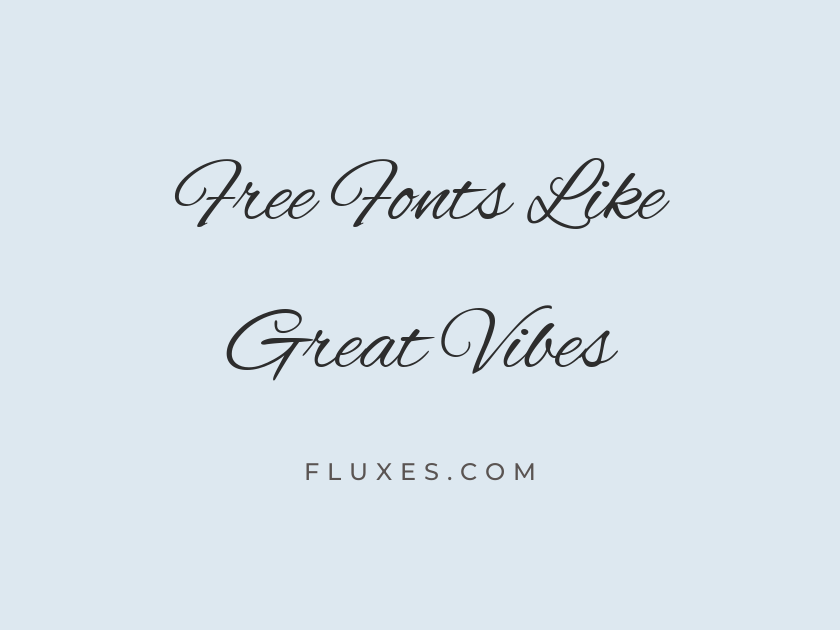
16 Best Free Fonts Similar to Great Vibes
Great Vibes has become the default choice for anyone chasing that romantic, hand-lettered calligraphy look, and its popularity means designers are constantly hunting for fresh alternatives that carry the same elegance without repeating the exact same silhouette on every wedding invite and logo. The style is defined by long entrance and exit strokes, a forward slant, and a light touch that feels penned rather than typed. Finding free calligraphy fonts on Google Fonts that hit that same formal, flowing register takes some sifting, since many scripts lean casual or bouncy rather than refined.
Alex Brush is probably the closest sibling to Great Vibes in spirit: confident, continuous strokes with a slightly bolder body that reads well even at modest sizes. It carries the same bridal warmth but with a touch more weight, making it a dependable stand-in when Great Vibes feels a little too delicate for the layout.
There is a softness to Allura that makes it feel almost whispered rather than announced. The letterforms are narrower and more upright in places than Great Vibes, which gives it a slightly more contemporary, less baroque feel while still working beautifully on save-the-dates.
Parisienne trades some of the sharp calligraphic flair for rounder, more relaxed loops, giving it a friendlier, almost conversational tone. It suits invitations and packaging that want romance without quite so much formality, and it pairs nicely with a restrained serif for body copy.
Pinyon Script leans further into old-world engraving, the kind of lettering you would expect on a Victorian calling card. Its strokes are thinner and more angular than Great Vibes, so it earns a place on formal certificates and monograms where precision matters more than warmth.
This one is smaller in scale and more upright, closer to a delicate handwriting sample than a grand calligraphic flourish. Sacramento shines in short phrases, logotypes, and social graphics where Great Vibes would feel oversized or overly ornate.
Mrs Saint Delafield has a looser, more spontaneous hand, as if it were signed rather than set. That informality makes it a good pick when a design needs the romance of script lettering but wants to avoid looking too stiff or printed.
Italianno pushes the exaggerated swashes even further than Great Vibes, with tall ascenders that curl dramatically above the baseline. It photographs well as a hero word on a website banner, though at small sizes those flourishes can blur together, so it is best reserved for large display use.
Herr Von Muellerhoff feels like a fountain pen dipped in extra ink, dense and confident in its curves. Save it for short headlines rather than long lines of text, where its thick connecting strokes can start to feel heavy.
Rouge Script keeps the romance but simplifies the flourishes, resulting in a cleaner, more legible script that still nods to calligraphy tradition. It is a practical choice for anyone who loves the Great Vibes mood but needs something that holds up in smaller print runs like place cards or menus.
Tangerine is lighter and more delicate than almost anything else on this list, closer to fine copperplate than bold script. The bold weight helps it stay legible, but it still asks to be set large, ideally paired with a sturdy serif or sans for supporting text.
As the name suggests, this one is stiffer and more upright, resembling formal penmanship instruction rather than freehand calligraphy. It suits certificates, diplomas, and other documents where the tone needs to feel official rather than romantic.
Meddon has a gentle, unhurried rhythm to its letterforms, less theatrical than Great Vibes but still clearly a calligraphy font. It works well in body-length script use, such as a short poem or vow excerpt, where more elaborate scripts would tire the eye.
WindSong feels contemporary despite its calligraphic roots, with cleaner joins and a lighter overall texture. It is a strong option for modern branding that wants a script accent without veering into overtly vintage territory.
Lovers Quarrel
This script is compact and tightly looped, giving it a busier, more decorative texture than Great Vibes. It reads best in short bursts, such as a monogram or a single accent word layered over a photograph.
Marck Script feels the most like genuine handwriting on this list, casual and slightly imperfect in the most charming way. It is a good match for personal, informal projects like greeting cards or journaling templates rather than high-formality invitations.
Always test your chosen font at the actual size it will be used. Some of these alternatives to Great Vibes hold up beautifully at small sizes, while others need to stay large and decorative.
Great Vibes earned its popularity honestly, but the free alternatives above prove there is a wide range of calligraphic personality available without licensing fees. Whether the project calls for something bolder, gentler, more formal, or more playful, one of these Google Fonts scripts should carry the same romantic energy into a design of its own.